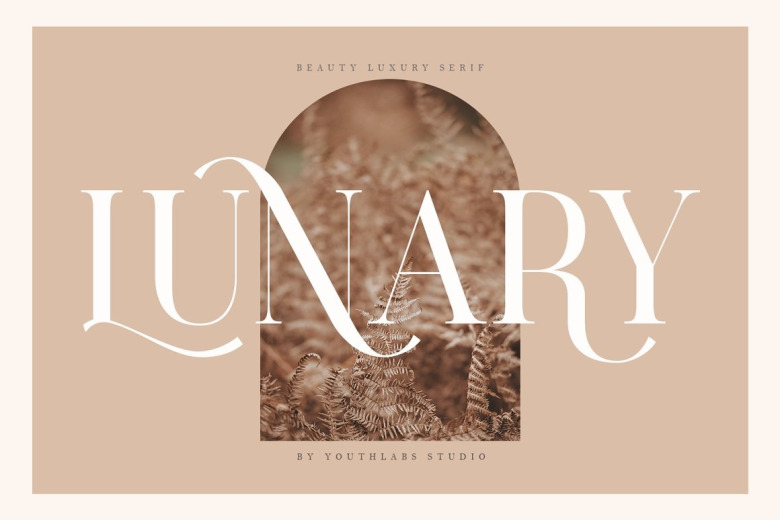
LUNARY Font
LUNARY is a serif font that gives off a beauty luxury font. It looks so good for fashion brand logo. With many alternative fonts, LUNARY will make it easier for you to use various design functions, be it for logos, typography, magazine, fashion, branding, advertising, and more.
LUNARY Serif Font